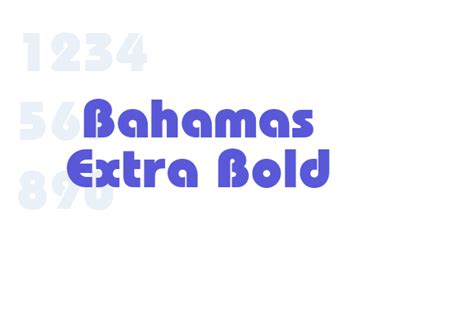
Hey guys! Are you on the hunt for that perfect bold font to make your designs pop? Look no further! In this article, we’re diving deep into the OSC Bahamassc Extra Bold font. We’ll cover everything from where to download it for free to how to use it effectively in your projects. Let’s get started!
The world of typography is vast and varied, with fonts playing a crucial role in conveying messages and setting the tone for any design project. Among the myriad of options available, the OSC Bahamassc Extra Bold font stands out as a powerful and impactful choice. Its strong, assertive letterforms make it ideal for headlines, titles, and any application where you need to grab attention. But what exactly makes this font so special, and how can you get your hands on it without spending a dime? This comprehensive guide will walk you through everything you need to know about the OSC Bahamassc Extra Bold font, from its unique characteristics to its best use cases, and, of course, where to download it for free. Whether you’re a seasoned designer or just starting out, understanding how to leverage this font can significantly enhance your creative projects. We’ll delve into the specifics of its design, exploring the subtle nuances that contribute to its overall aesthetic appeal. Additionally, we’ll provide practical tips and advice on how to incorporate it seamlessly into your work, ensuring that you achieve the desired impact. So, get ready to unlock the full potential of the OSC Bahamassc Extra Bold font and elevate your design game to the next level.
What is OSC Bahamassc Extra Bold Font?
So, what exactly is the OSC Bahamassc Extra Bold font? Simply put, it’s a typeface known for its strong , thick strokes and commanding presence. It falls into the sans-serif category, meaning it lacks those little decorative extensions (serifs) you see on fonts like Times New Roman. This gives it a modern and clean look, perfect for contemporary designs. The “Extra Bold” designation indicates that it’s one of the heavier weights in the OSC Bahamassc family, making it ideal for situations where you need maximum impact.
The OSC Bahamassc Extra Bold font is characterized by its clean lines, geometric shapes, and exceptional readability. Its bold weight ensures that it stands out even in busy layouts, making it a popular choice for branding materials, posters, and website headers. The absence of serifs gives it a contemporary and minimalist feel, aligning well with modern design trends. Furthermore, the font’s versatility allows it to be used in a wide range of applications, from print to digital media. Its clear and legible letterforms make it suitable for body text as well, although it is most effective when used sparingly for emphasis. In terms of design, the OSC Bahamassc Extra Bold font features a balanced contrast between thick and thin strokes, creating a visually appealing rhythm. The spacing between letters is carefully considered to ensure optimal readability, preventing the characters from appearing too crowded or too sparse. This attention to detail contributes to the font’s overall professional appearance. Moreover, the OSC Bahamassc Extra Bold font is available in various formats, making it compatible with different operating systems and software. Whether you’re using Windows, macOS, or Linux, you can easily install and use this font in your favorite design applications. Its broad compatibility ensures that you can seamlessly integrate it into your workflow, regardless of your preferred platform.
How to Use OSC Bahamassc Extra Bold Effectively
So, you’ve got the font – now what? Here are a few tips on how to use OSC Bahamassc Extra Bold effectively:
• Headlines and Titles: This is where this font shines! Use it for eye-catching headlines that grab attention.
• Branding: Incorporate it into your logo or branding materials for a strong and modern feel.
• Posters and Flyers: Make your message stand out with this bold typeface.
• Web Design: Use it for website headers or key call-to-action buttons.
• Limit Usage: Don’t overuse it! Too much bold can be overwhelming. Use it strategically for emphasis.
The OSC Bahamassc Extra Bold font is a versatile tool that can significantly enhance the visual appeal of your designs. However, like any design element, it’s essential to use it judiciously and strategically. Overusing this font can lead to visual clutter and diminish its impact. Instead, focus on using it sparingly to highlight key information and create a focal point in your design. When using the OSC Bahamassc Extra Bold font for headlines or titles, consider pairing it with a lighter weight font for body text. This creates a visual hierarchy that guides the reader’s eye and improves readability. Choose a complementary font that shares similar characteristics, such as a sans-serif typeface with clean lines and a neutral tone. Experiment with different font combinations to find the perfect balance that suits your design aesthetic. In addition to font pairing, pay attention to the size and spacing of the OSC Bahamassc Extra Bold font. Adjust the letter spacing and line height to ensure optimal readability and prevent the text from appearing too cramped or too sparse. Consider the overall layout of your design and how the font interacts with other elements, such as images and graphics. Ensure that the font is properly aligned and that there is sufficient contrast between the text and the background. Furthermore, think about the context in which the font will be used. Is it for a formal business presentation or a casual social media post? Tailor your font usage to match the tone and style of the content. Avoid using overly bold fonts in situations where a more subtle and understated approach is required. By following these guidelines, you can effectively leverage the power of the OSC Bahamassc Extra Bold font and create visually compelling designs that resonate with your audience.
The OSC Bahamassc Extra Bold font is a powerful and versatile tool that can elevate your designs and help you create visually compelling content. By understanding its unique characteristics, finding reputable sources for free downloads, and adhering to licensing considerations, you can harness its full potential and avoid any potential legal issues. Whether you’re a seasoned designer or just starting out, this font can be a valuable addition to your toolkit. Its strong, assertive letterforms make it ideal for headlines, titles, and any application where you need to grab attention. However, like any design element, it’s essential to use it judiciously and strategically. Overusing this font can lead to visual clutter and diminish its impact. Instead, focus on using it sparingly to highlight key information and create a focal point in your design. When using the OSC Bahamassc Extra Bold font, consider pairing it with a lighter weight font for body text. This creates a visual hierarchy that guides the reader’s eye and improves readability. Choose a complementary font that shares similar characteristics, such as a sans-serif typeface with clean lines and a neutral tone. Experiment with different font combinations to find the perfect balance that suits your design aesthetic. Remember to always check the licensing agreement that comes with the font. Some free fonts are only free for personal use, and you’ll need a commercial license for business purposes. Other fonts might have restrictions on modification or redistribution. It’s better to be safe than sorry and avoid any potential legal issues down the road. By following these guidelines, you can effectively leverage the power of the OSC Bahamassc Extra Bold font and create visually stunning designs that resonate with your audience.